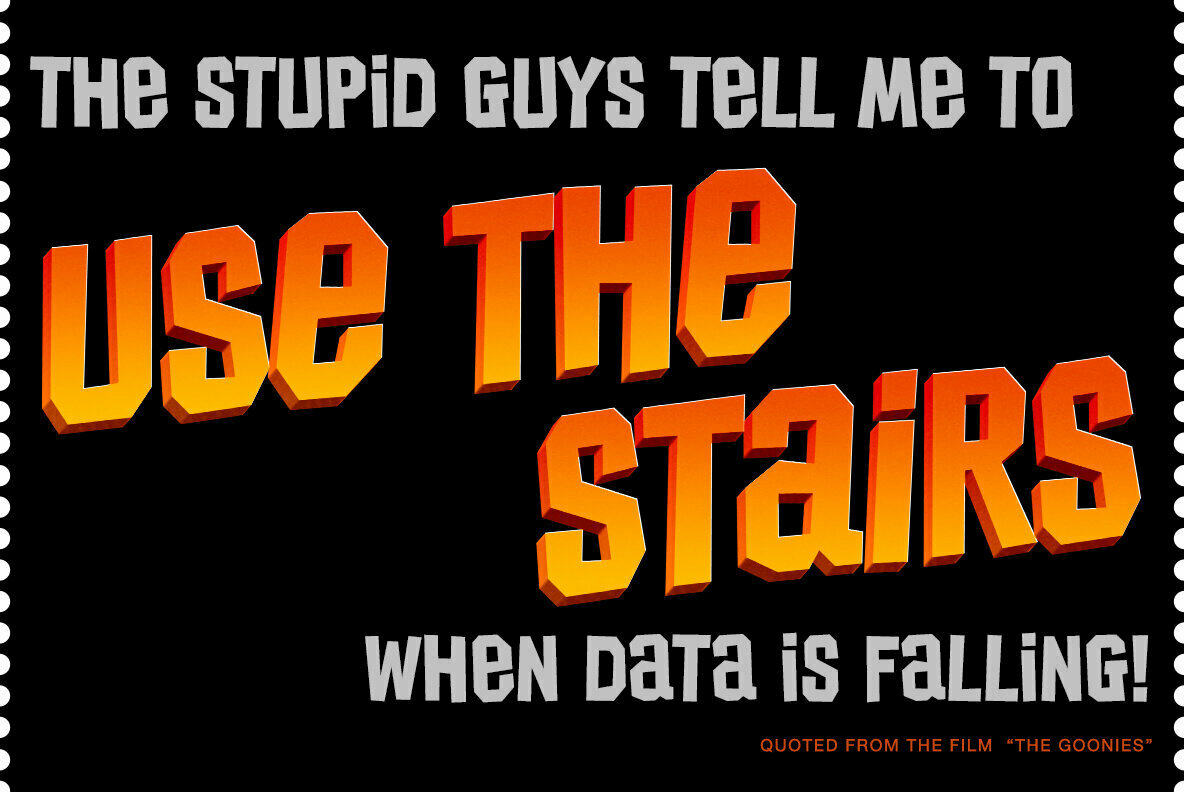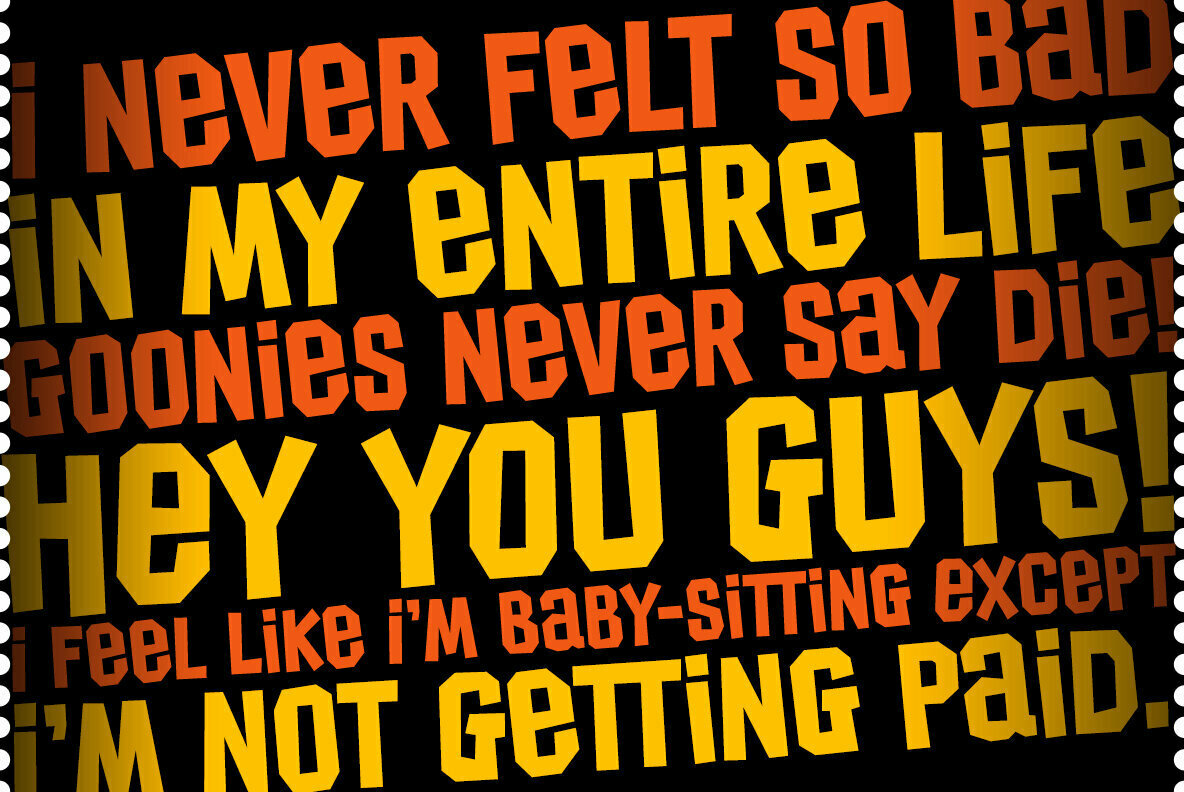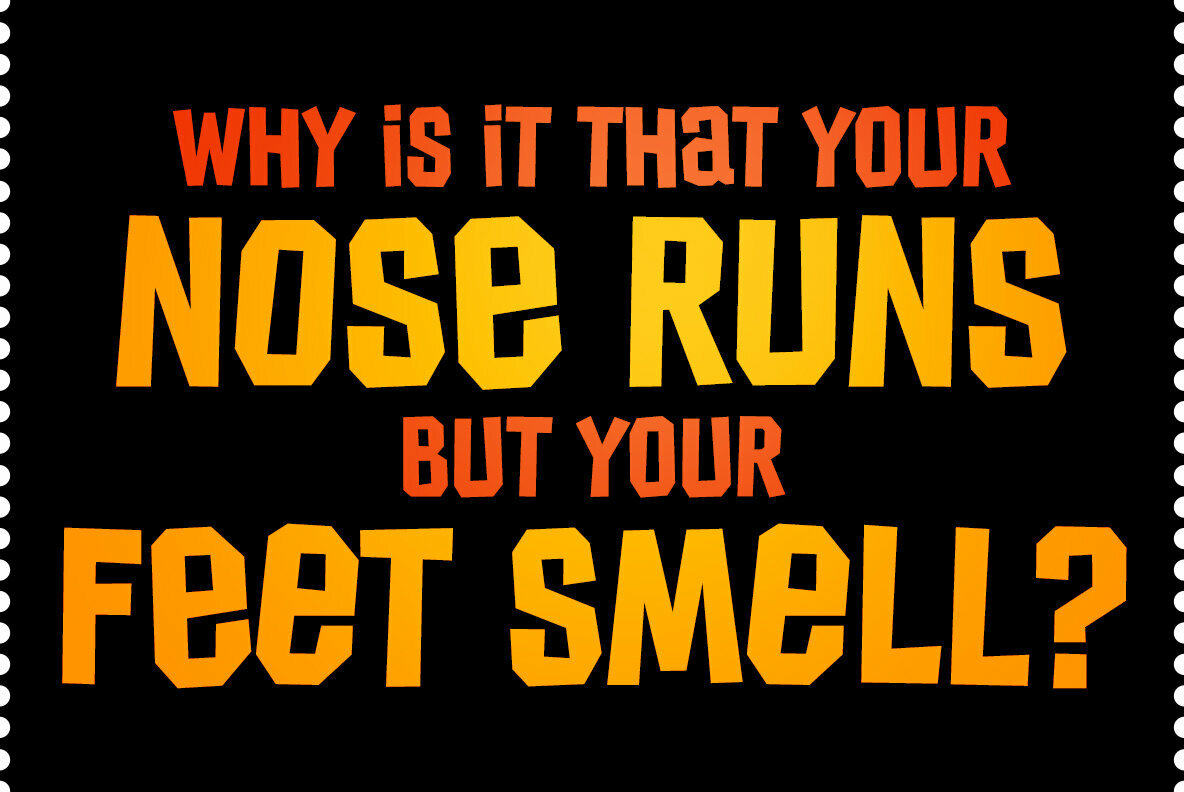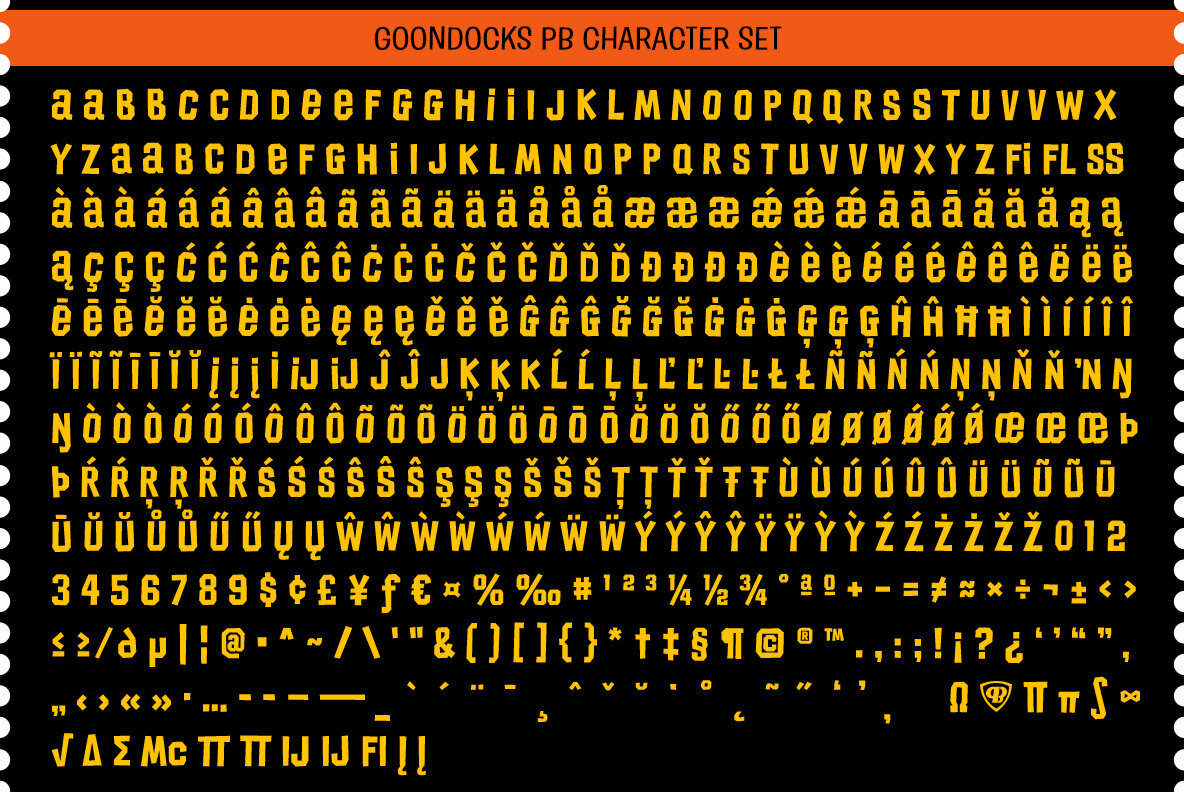
Goondocks PB
Goondocks PB is a faithful recreation of the titling font from 1985 film, "The Goonies". This was a lot of fun to recreate and flesh out, and it has that purposefully awkward appeal that a lot of Pink Broccoli fonts are imbued with.
With a pseudo unicase styling, wonky blockish style lettering, and that visceral tieback to the 80's, Goondocks brings back fond memories, perfect for those unorthodox creative designs.